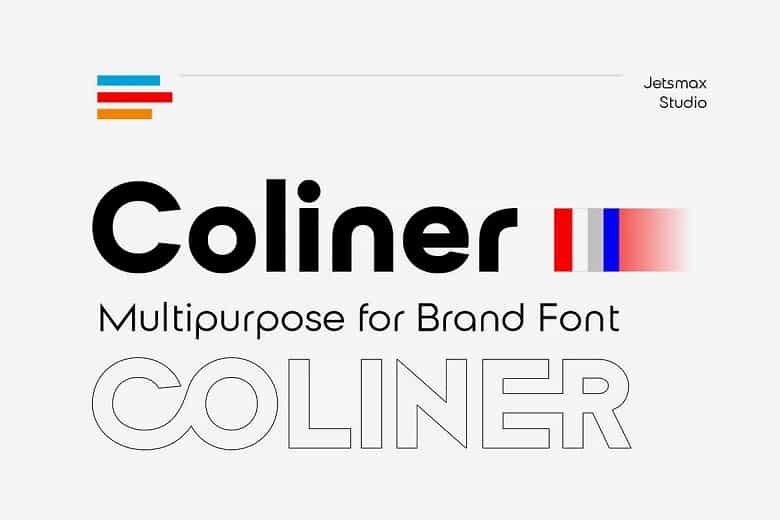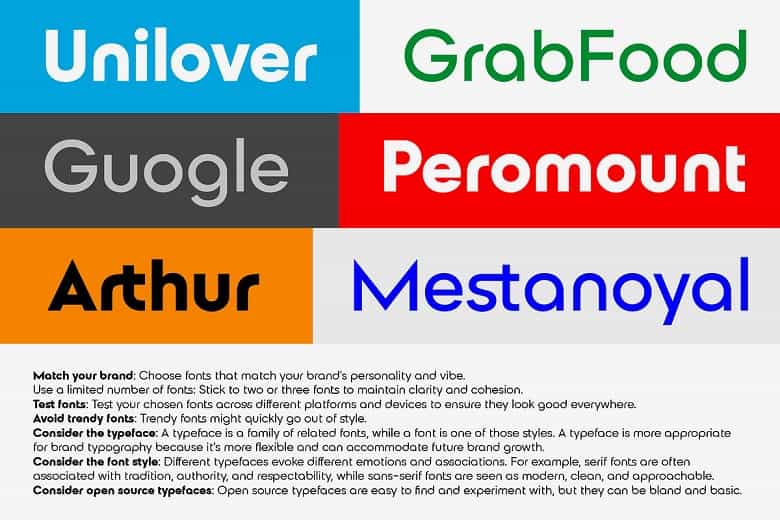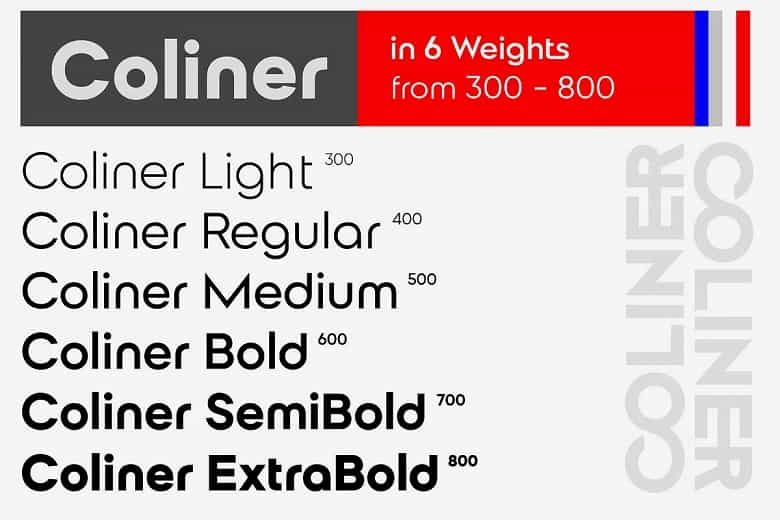
Discover Coliner Font Family, part of the Sans Serif collection—a versatile and unique font perfect for adding a personal touch to your projects. Download it for free and enjoy crafting designs with style, from invitations to social media posts. This font is available exclusively for personal use, giving you the freedom to create without limits. Unlock your creativity with Coliner Font Family today!
Coliner is a stylish and minimalistic sans serif font with some elements of the geometric superfamily. It is a geometric and symmetrical design which uses forms that are rather logical and clear-cut. Perfect for modern logos, newspapers and magazines, and website design,